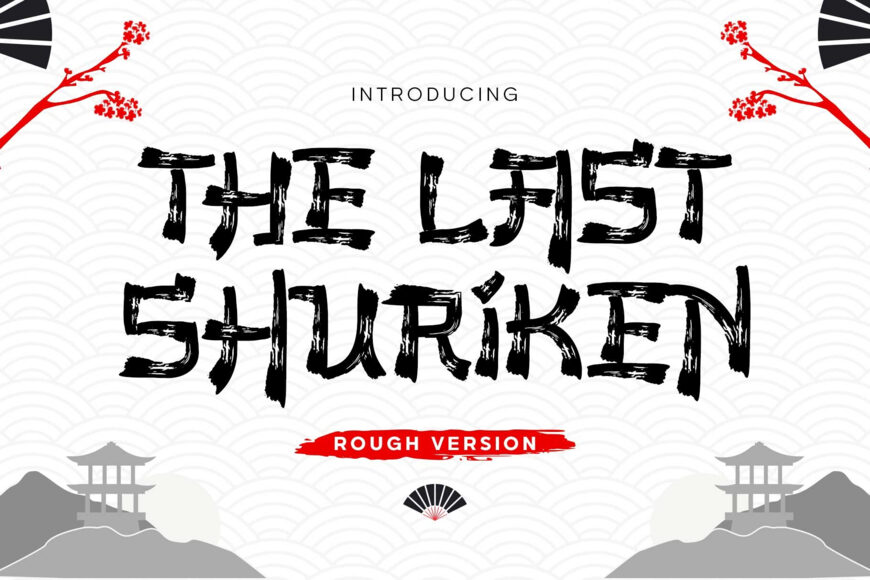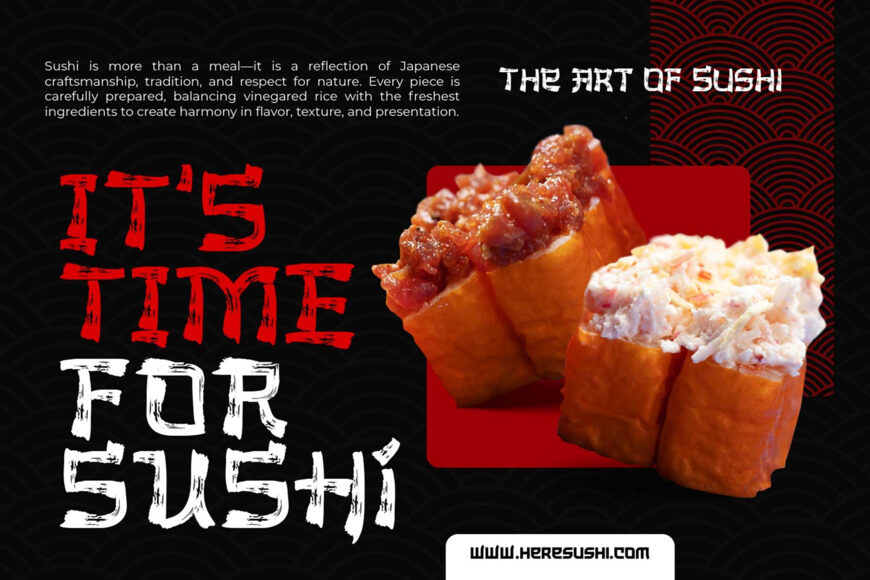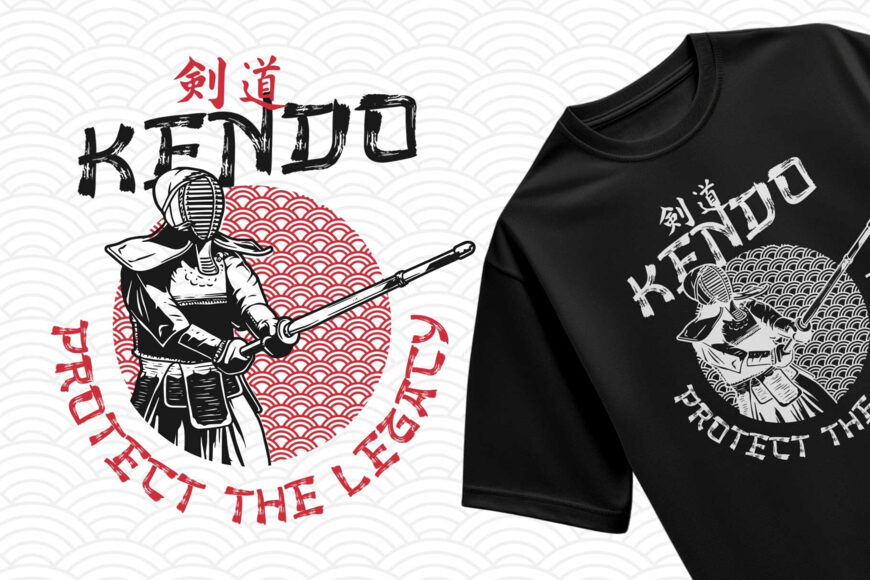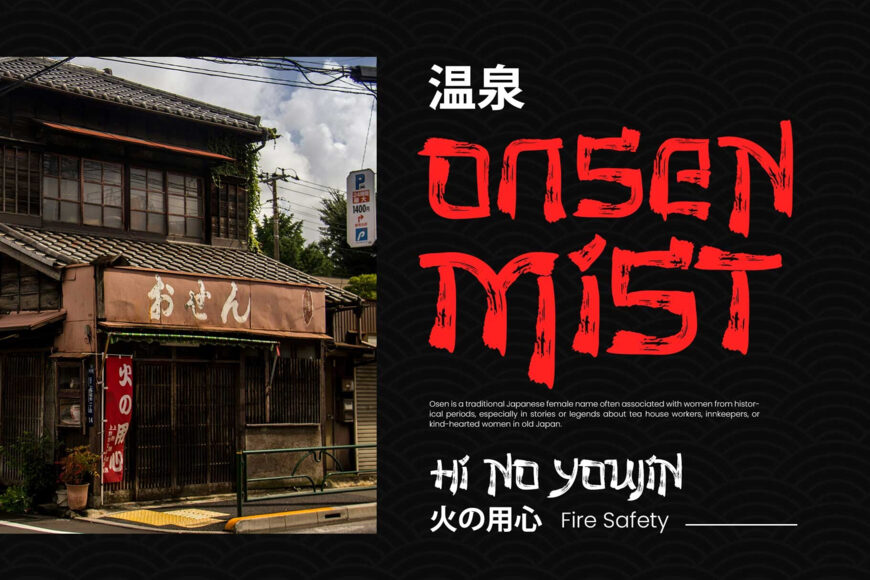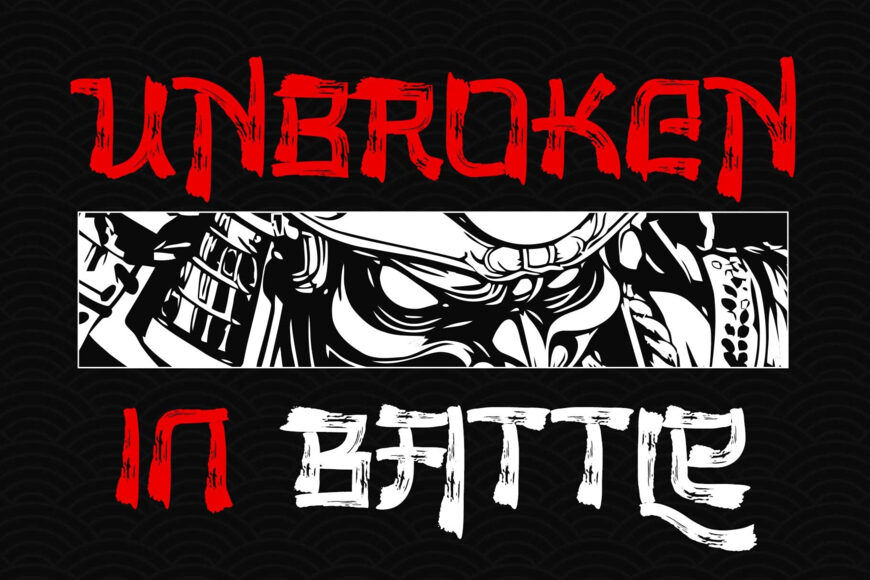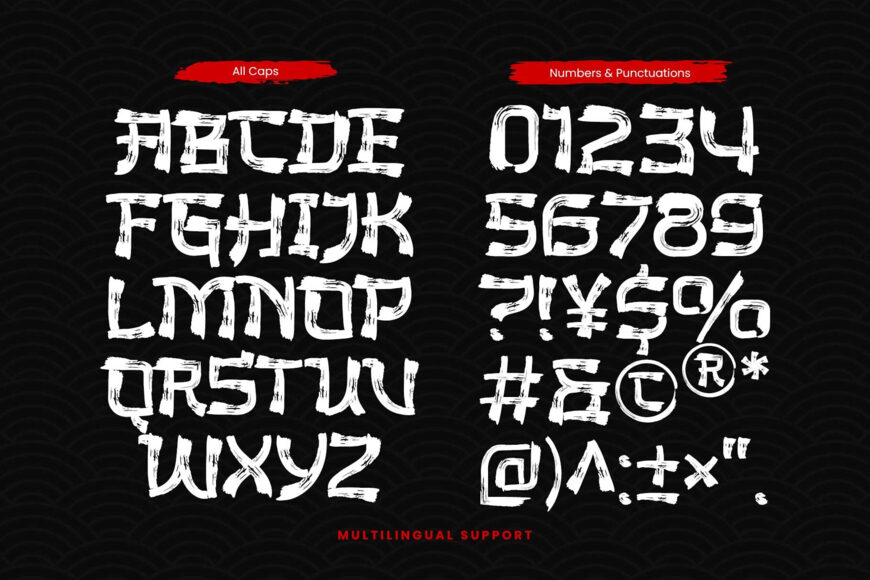
The Last Shuriken Rough is a new exploration of our best-selling Japanese display typeface, inspired by the raw beauty of traditional brush lettering. Featuring expressive dry-brush textures, distressed edges, and handcrafted ink strokes, it delivers a bold, authentic look influenced by Japanese calligraphy, vintage signage, and samurai culture.
Designed as an all-caps display font with stylistic alternates, The Last Shuriken Rough helps create natural, dynamic lettering with ease. Perfect for logos, branding, packaging, restaurant menus, posters, apparel, game titles, and social media, it brings handcrafted character and striking visual impact to every project.